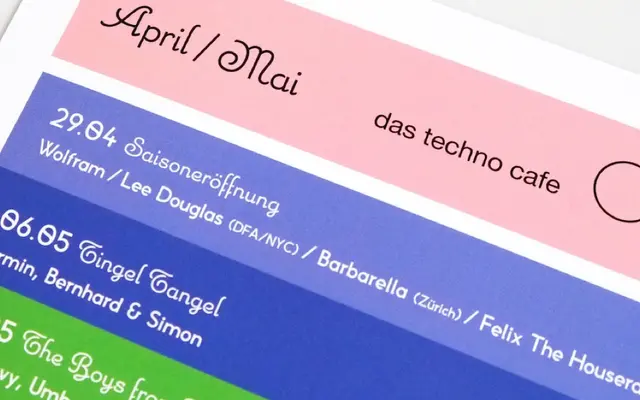
Carabelle
A casual handwritten script with a single style, offering OpenType alternates, arrows and decorative underlines for display use.
A single-weight casual script designed for display settings such as packaging, greeting cards and cafe signage. OpenType features include alternative letterforms, arrows, fractions and underline variants, giving designers flexibility within a single font file. The specimen examples span food branding, seasonal cards and event graphics, suggesting a warm, approachable register.
Carabelle presents as a casual, handwritten script typeface with a single Regular style, OpenType alternates and decorative features typical of display script fonts.